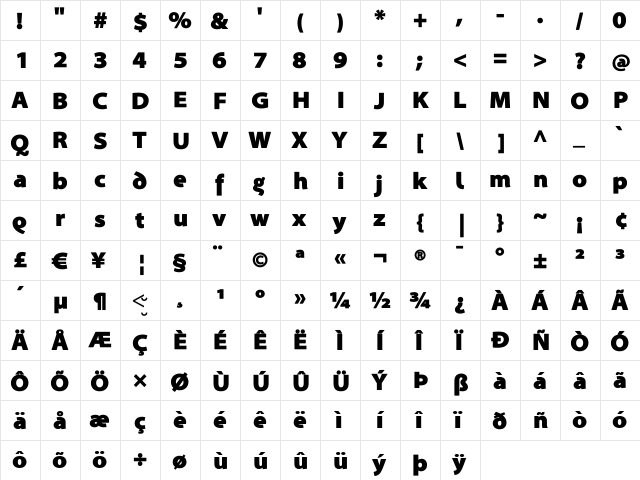
Santana-Black Regular
Design Context for Santana-Black Typeface
Santana-Black offers clean, dependable letterforms without strong stylistic allegiance, making it a practical choice for designers who need flexibility.
Pro Tip: Pair Santana-Black with a font of contrasting weight or personality to build a more expressive typographic hierarchy.